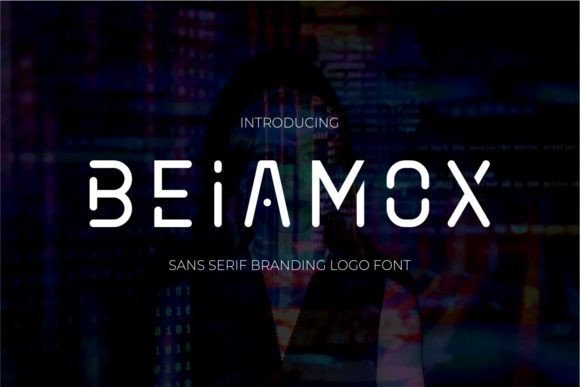
The Perfect Blend of Modernity and Functionality: Beiamox Font
You know that moment when you’re staring at a blank page, and suddenly, a spark of creativity hits you? The ideas start flowing, and you can’t wait to bring them to life. For designers, this moment is a dream come true. And, with the right tools, it can be a reality. That’s where the Beiamox Font comes in – a modern and futuristic sans serif font that adds a touch of sophistication to any project.
Beiamox Font is designed to be versatile and adaptable, making it the perfect addition to any design project. Whether you’re working on a brochure, a website, or a brand identity, Beiamox Font is sure to elevate your design to the next level. Its clean lines, modern aesthetic, and high readability make it a valuable asset for designers looking to create stunning visuals.
Key Features of Beiamox Font
- Font Family: Beiamox, Beiamox Italic, Beiamox Bold, Beiamox Bold Italic
- Character Set: Latin, Cyrillic, Greek, and Extended Latin characters
- Font Size: Available in 4 font sizes: 14, 18, 24, and 36 point
- Resolution: Suitable for screen and print at 300-600 DPI
- Unique Characteristics: Distinctive, modern design with rounded edges and subtle flair, ideal for use in branding, advertising, and digital media
Beiamox Font Review
Beiamox Font is a stylish, modern font that I had the chance to work with, and I must say it has its pros and cons. ✨ Here are some of the things that I think work well:
- Beiamox Font has a sleek, contemporary design that is perfect for modern branding and design projects.
- The font is highly customizable, allowing designers to adjust the spacing, weight, and other parameters to suit their needs.
- The font is highly legible, even at small sizes, making it perfect for digital applications.
- Beiamox Font supports a wide range of languages, making it a great choice for international design projects.
However, there are some limitations that I think are worth noting: ⚠️
- Beiamox Font can be a bit overwhelming in large blocks of text, making it best suited for headlines and titles.
- The font may not be suitable for older or low-resolution displays, as it can appear fuzzy or distorted.
- Beiamox Font may require additional formatting or styling to achieve the desired look, which can add extra time to design projects.
Overall, I think Beiamox Font is a solid choice for modern design projects, but it’s essential to consider its limitations and use it judiciously. With careful planning and execution, Beiamox Font can add a touch of sophistication and style to any design project.
Tips for Getting the Most Out of Beiamox Font
Beiamox Font is a versatile font that can be used for a variety of design projects. Here are some tips for getting the most out of it:
- Use Beiamox Font for headings and titles to add a touch of elegance.
- Pair Beiamox Font with other fonts to create a unique and eye-catching design.
Beiamox Font is commonly used for:
- Book covers and editorial design.
Alternatives to Beiamox Font
Open Sans is a clean and modern sans-serif font suitable for digital interfaces, signage, and body text. It is highly legible and readable in a variety of sizes and resolutions.
Compared to Beiamox Font, Open Sans has a more neutral and approachable feel, making it a versatile choice for various design applications.
Alegreya Sans
Alegreya Sans is a modern sans-serif font designed for digital use. It is highly readable and suitable for body text, titles, and signage. It features a strong x-height and clear letterforms.
Alegreya Sans is more geometric and structured than Beiamox Font, with a slightly more formal feel.
Montserrat is a geometric sans-serif font inspired by urban typography. It is highly legible and suitable for digital interfaces, signage, and titles.
Montserrat has a more modern and edgy feel compared to Beiamox Font, making it a great choice for designs that require a strong urban vibe.
Lato is a modern sans-serif font designed for digital use. It is highly readable and suitable for body text, titles, and signage. It features a clean and elegant design.
Lato has a more refined and sophisticated feel compared to Beiamox Font, making it a great choice for designs that require a touch of elegance.